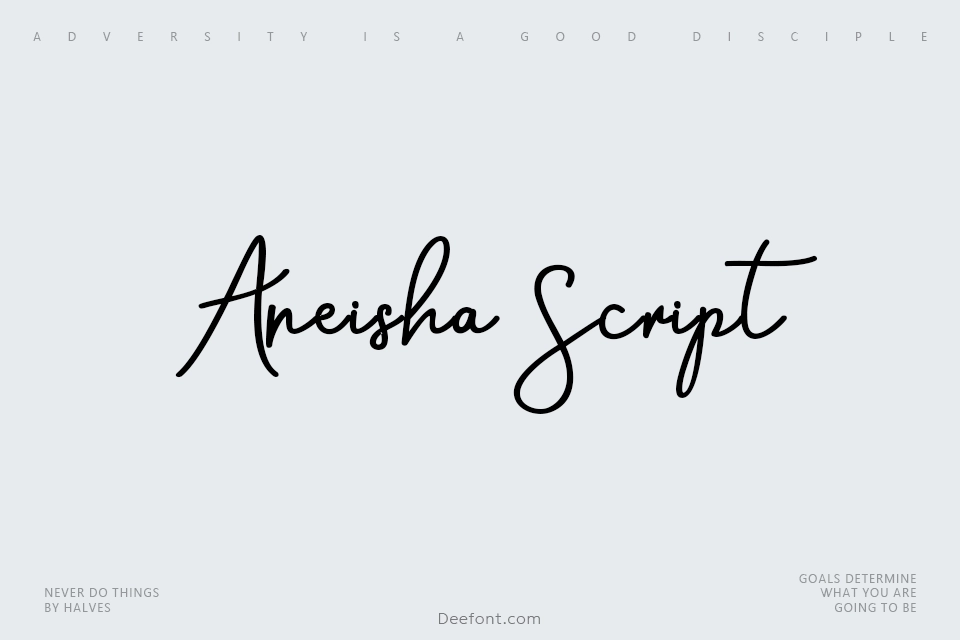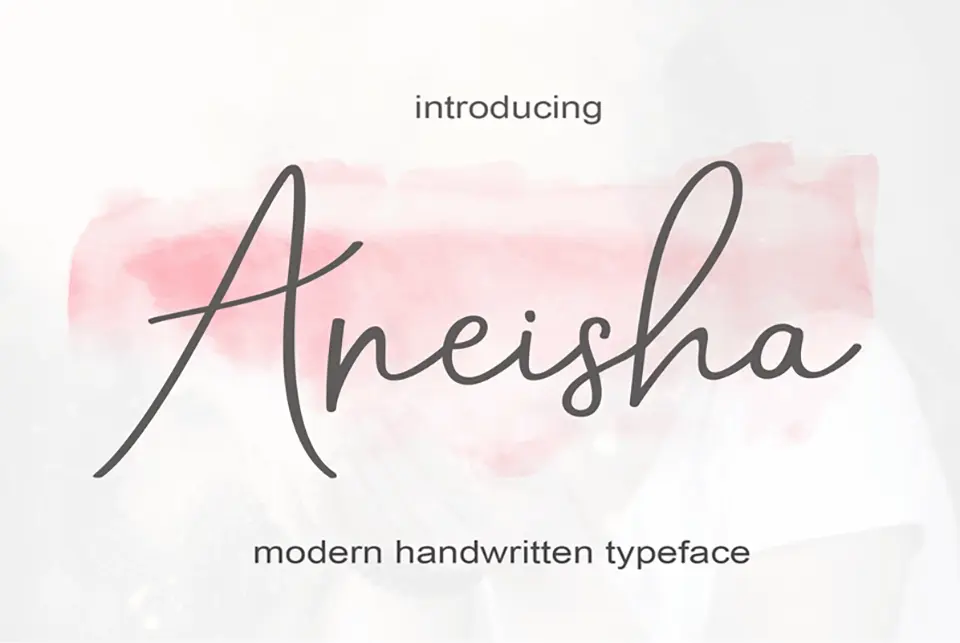
Aneisha Script Font
Aneisha Script is a modern calligraphy font featuring elegant handwriting with contemporary style, perfect for branding, wedding invitations, magazines, business cards, and creative designs. With its flowing strokes and artistic ligatures, this versatile typeface brings sophistication and charm to typography projects, offering multiple alternates and swashes that create authentic hand-drawn aesthetics for professional and personal creative endeavors.